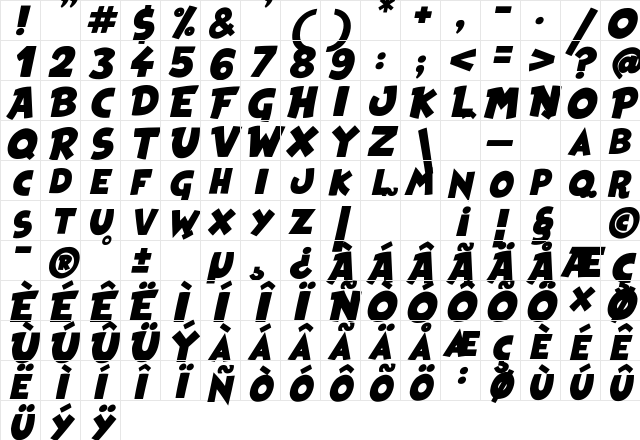
Heroes Legend Regular Free Font
Heroes Legend Regular
Designer: IMAGEX
Complete Heroes Legend Regular glyph index. Displaying only characters natively supported by Heroes Legend Regular font.
Design Context for Heroes Legend
Heroes Legend is a composed and adaptable typeface that performs quietly and consistently across a wide range of design contexts.
Pro Tip: Use Heroes Legend in both headline and body roles to test its range before committing to a single application.